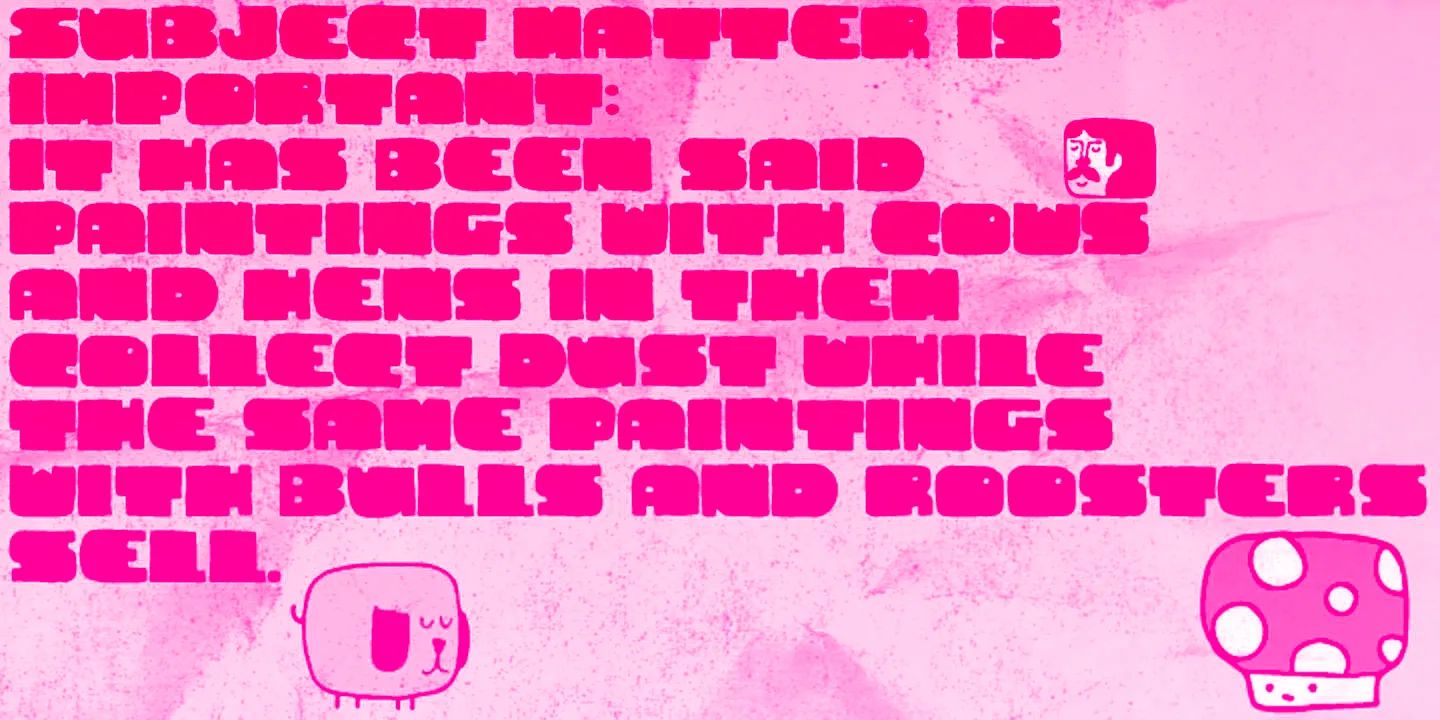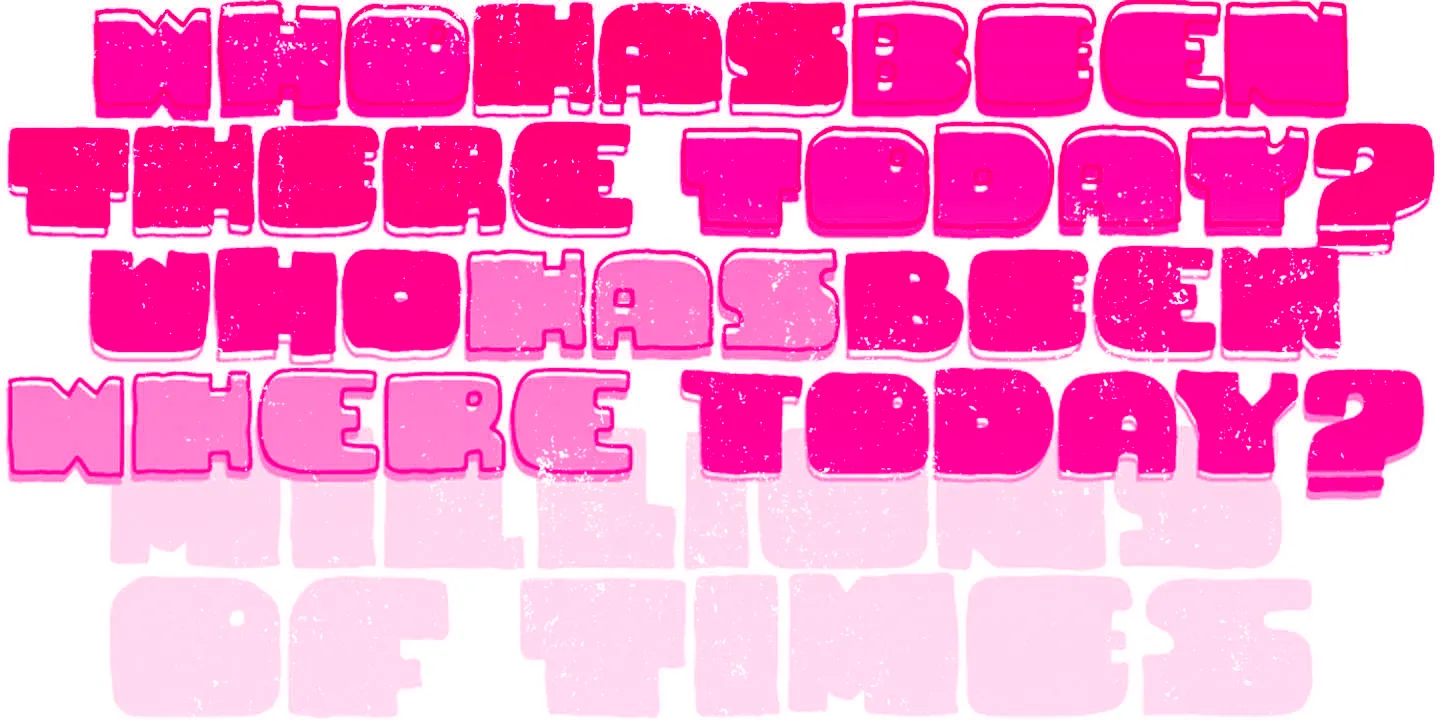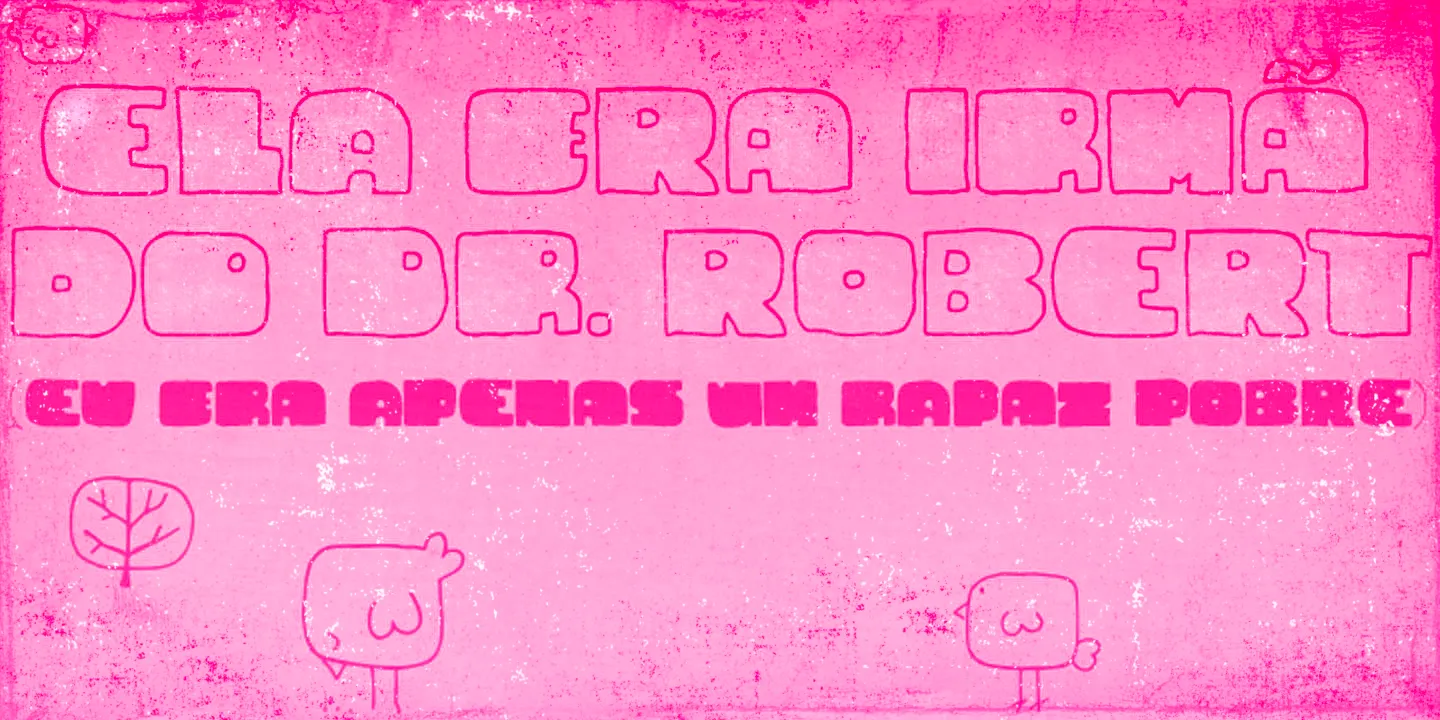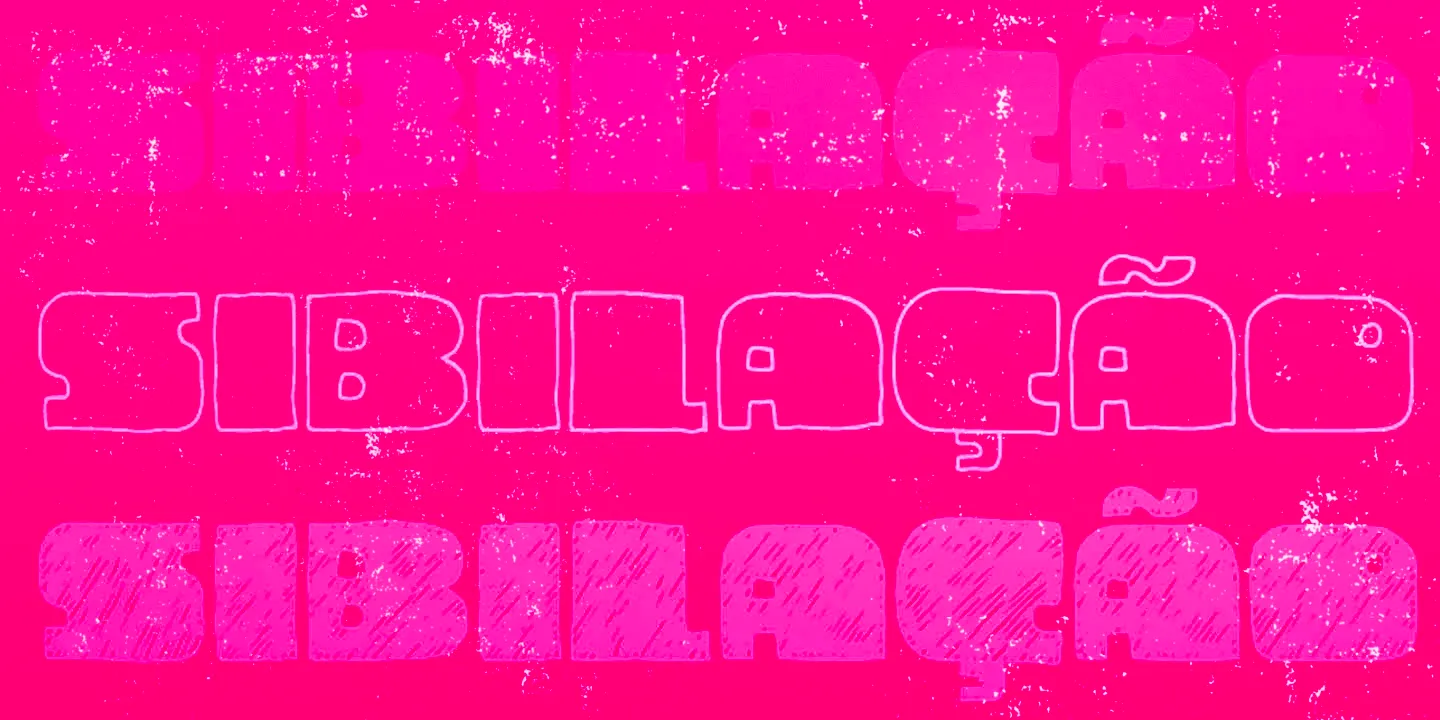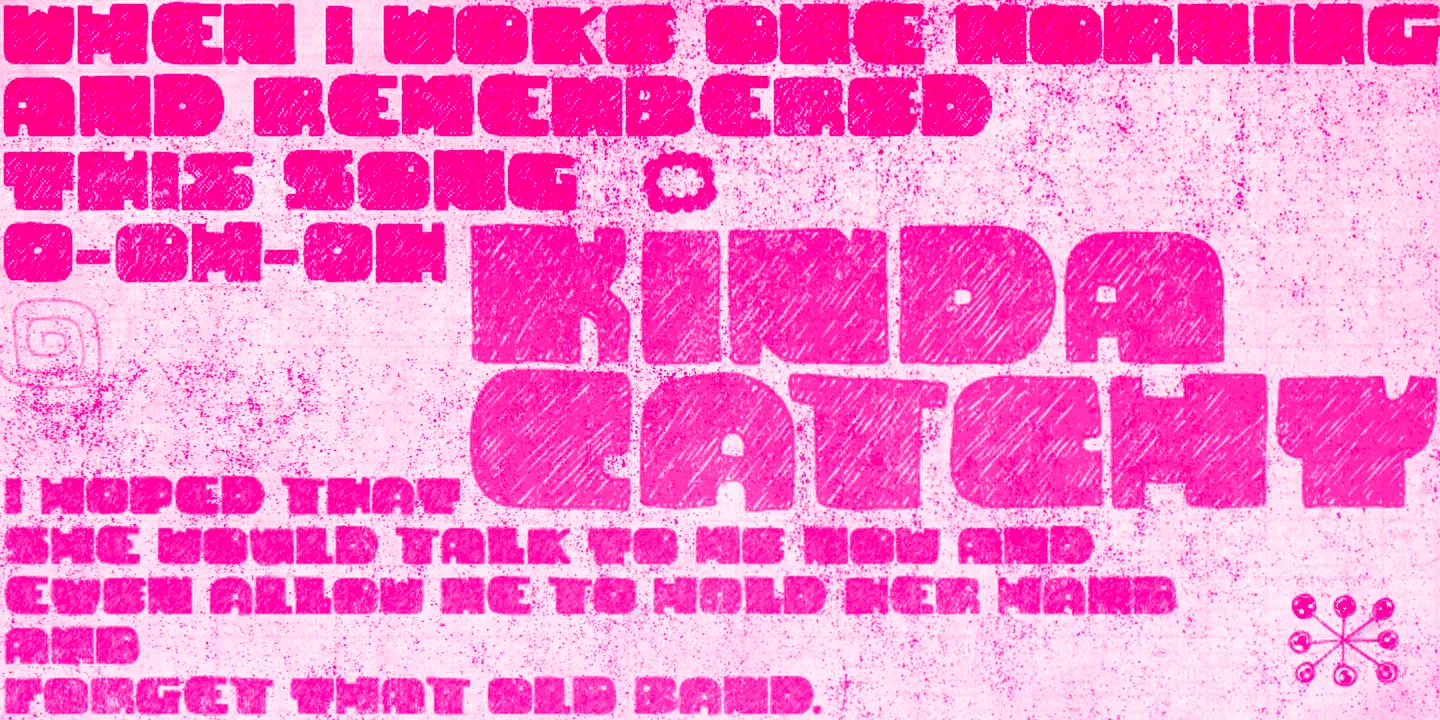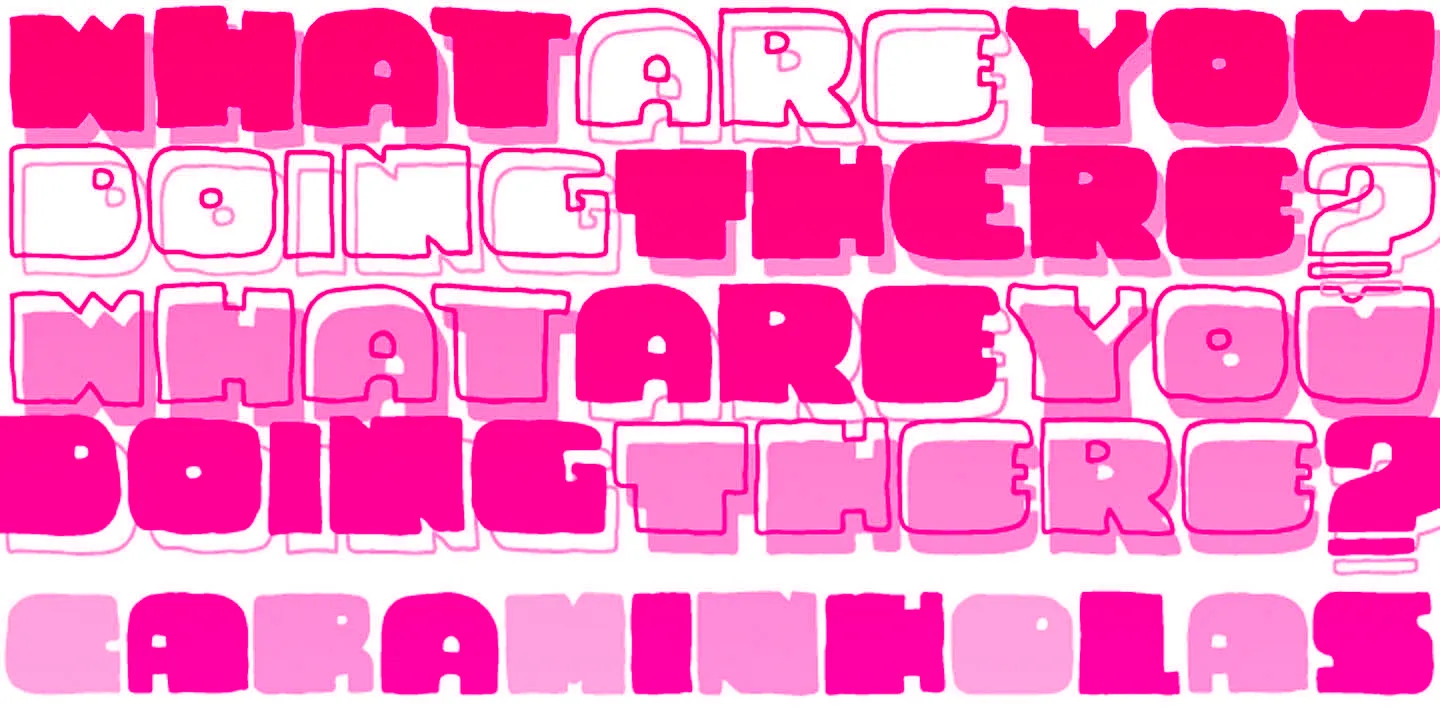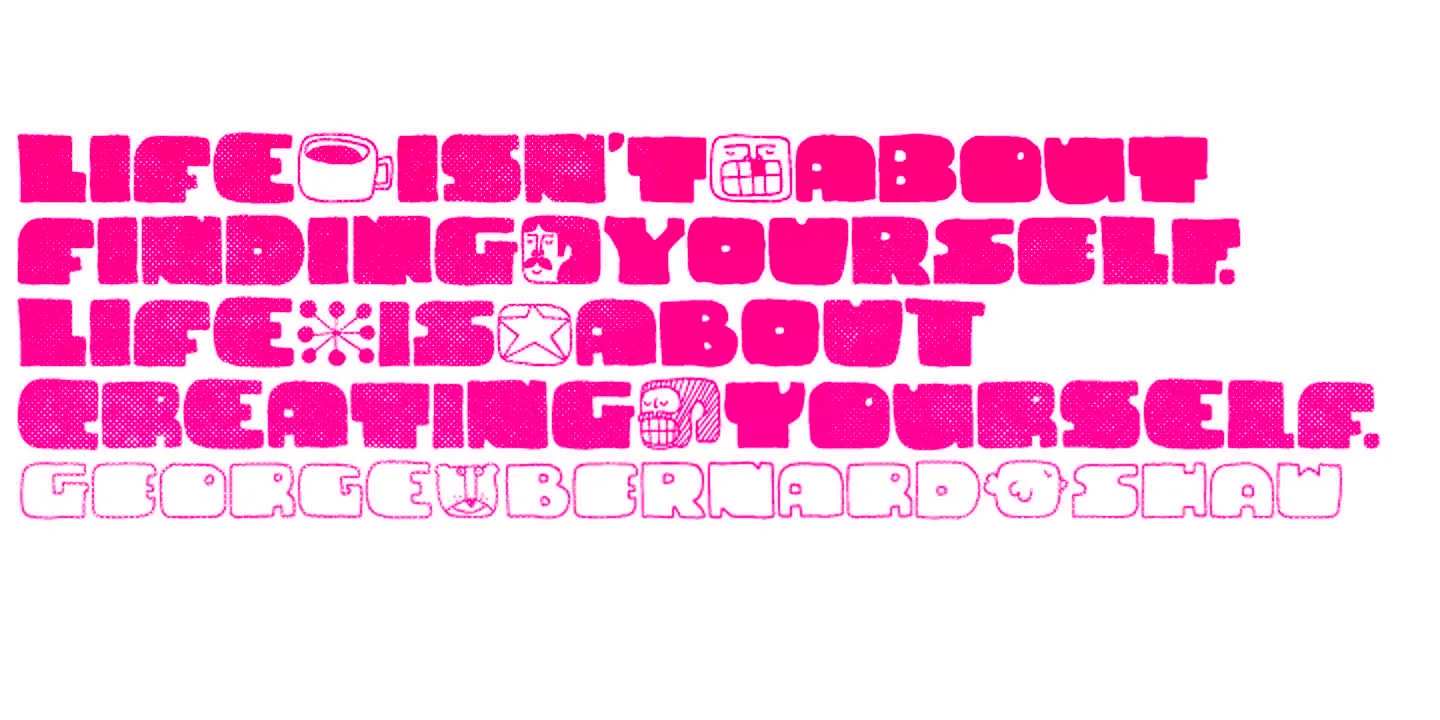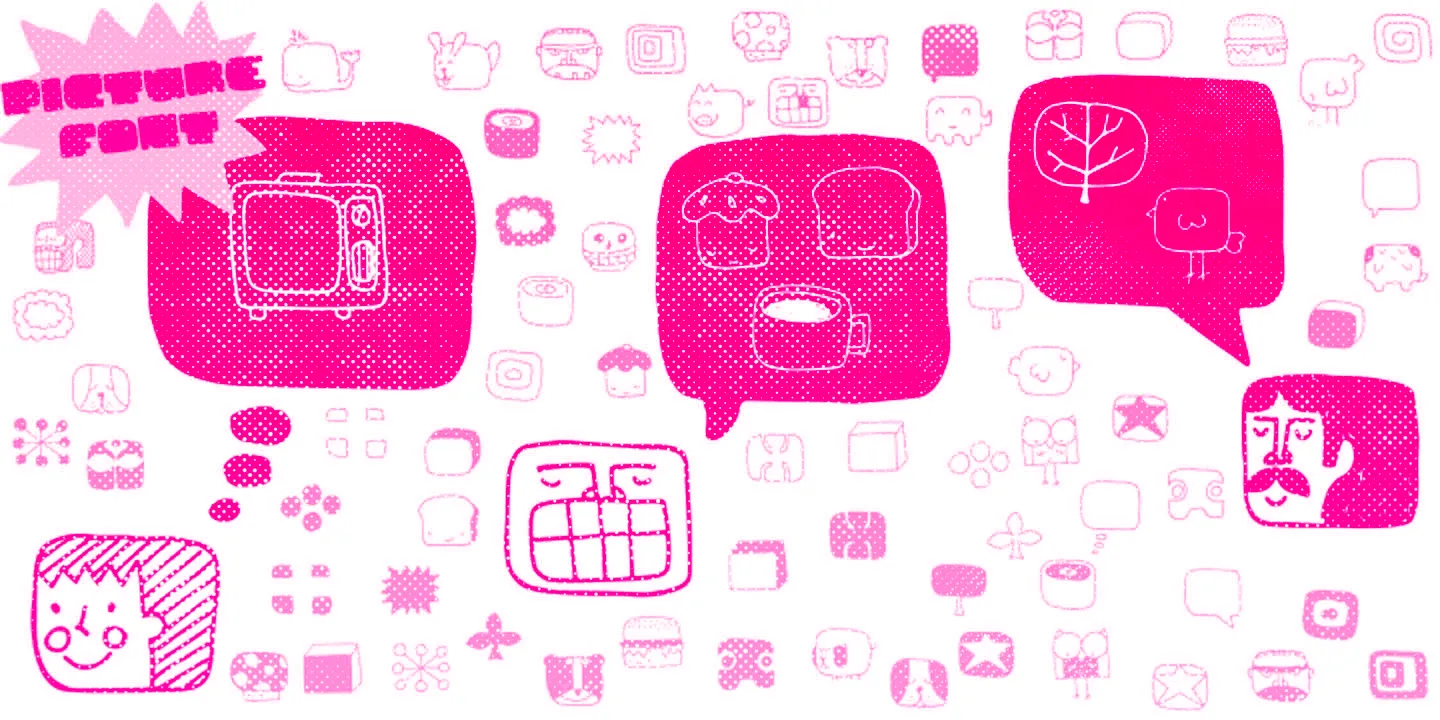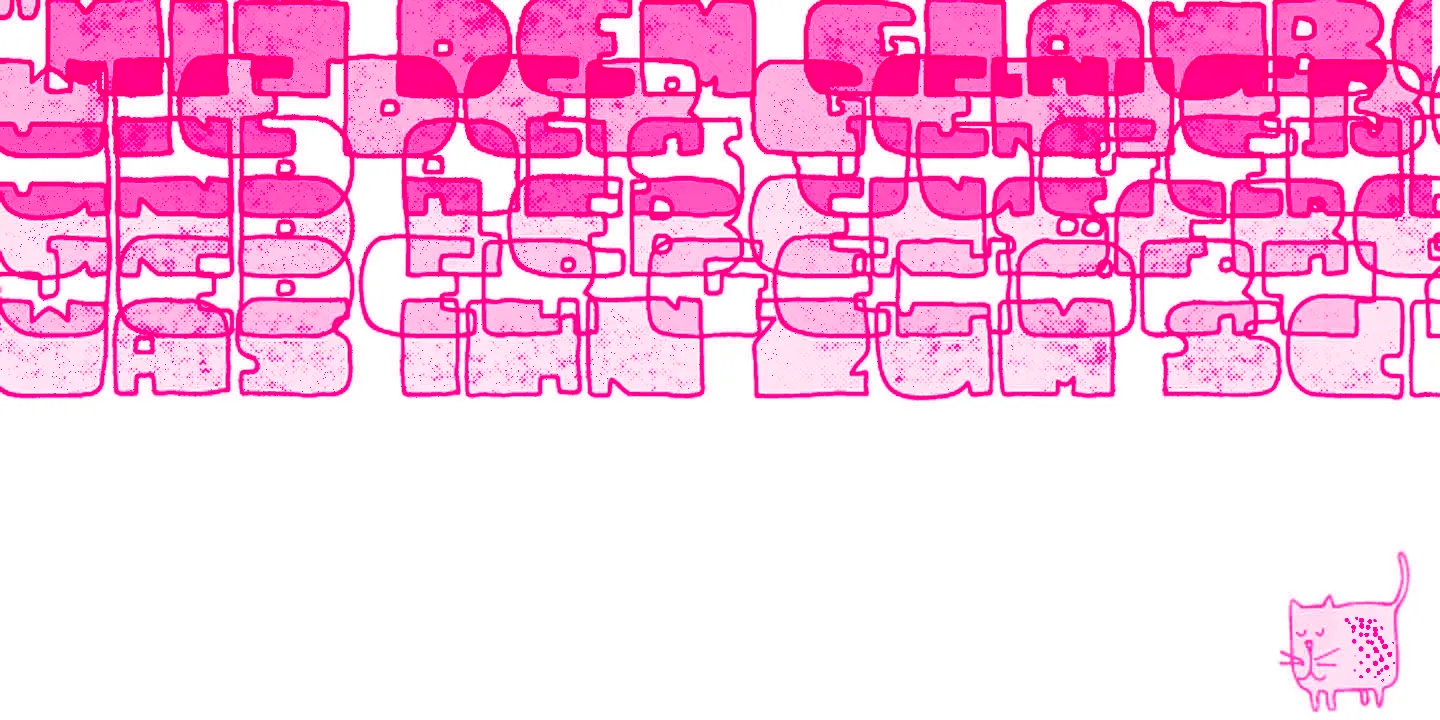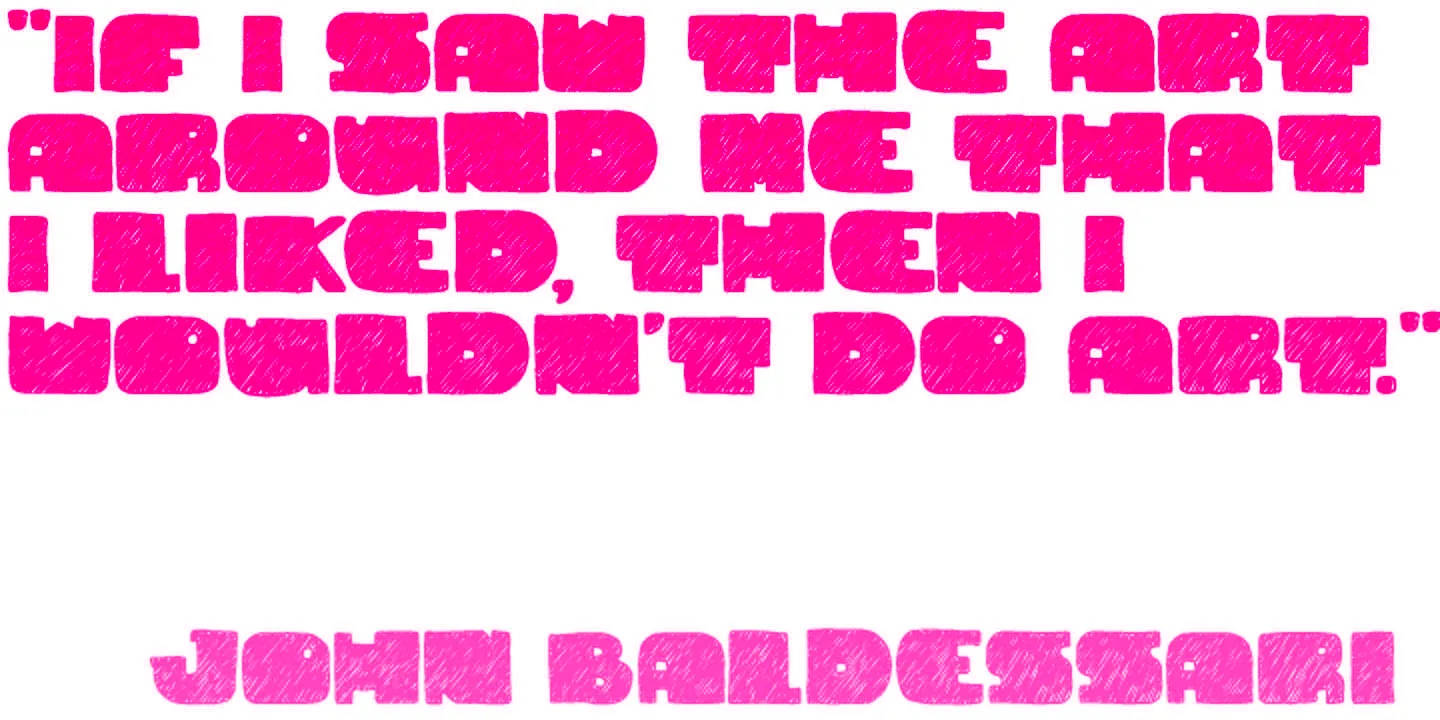
Cuadrifonte
Cuadrifonte is an all-caps design inspired by the lettering from a 1917 poster — the only recorded poster designed by the architect and furniture designer Gerrit Rietveld. It is a bold, boxy, hand-drawn typeface in three handcrafted styles, plus a cool picture font, loaded with illustrations that match the typeface’s look and feel. Add weight and presence to posters, packaging, book covers, and more with Cuadrifonte!